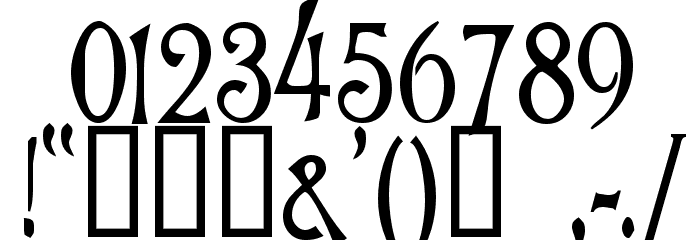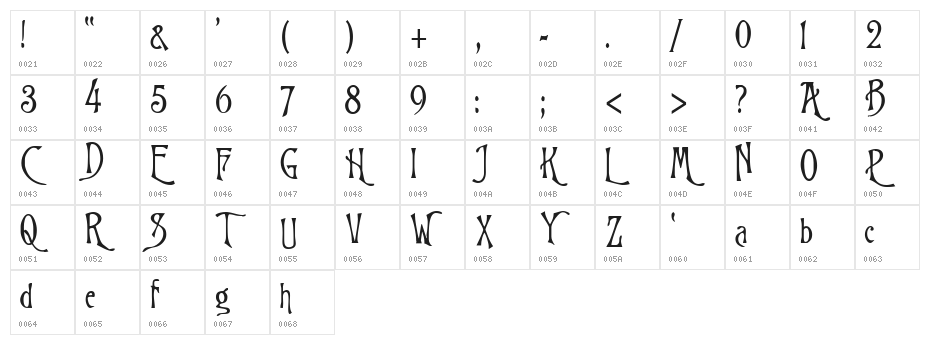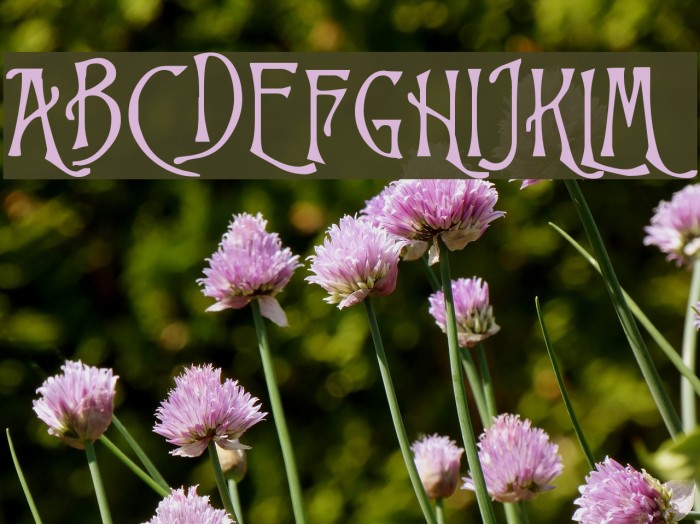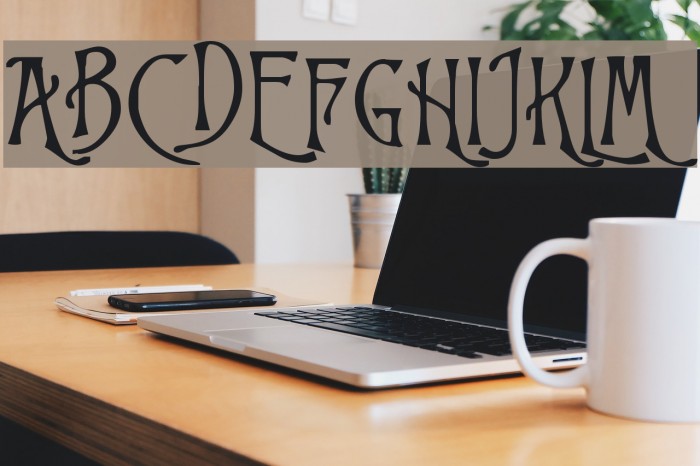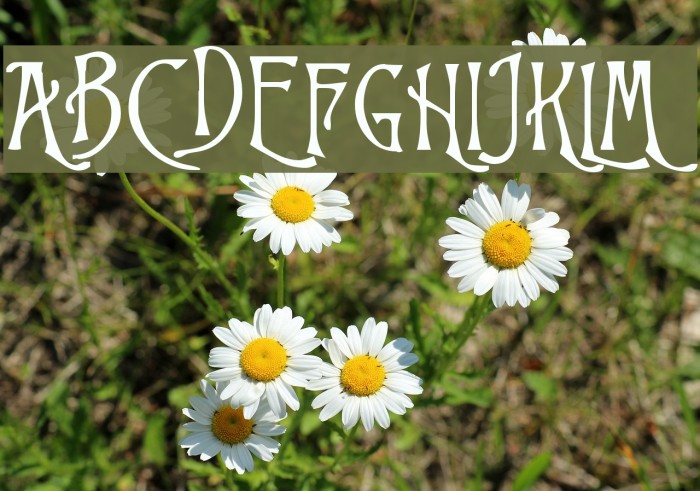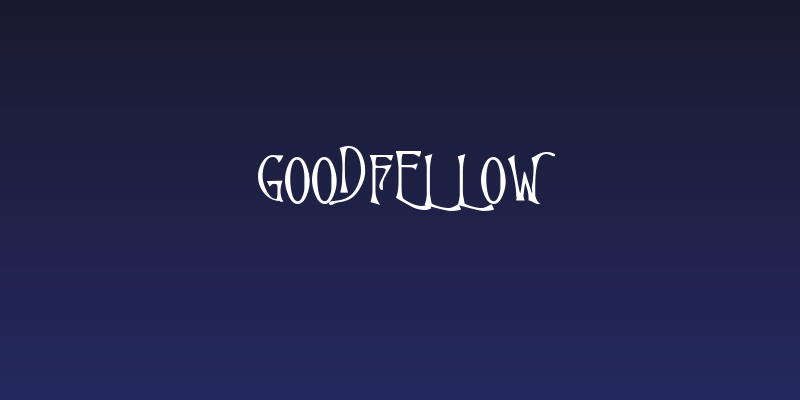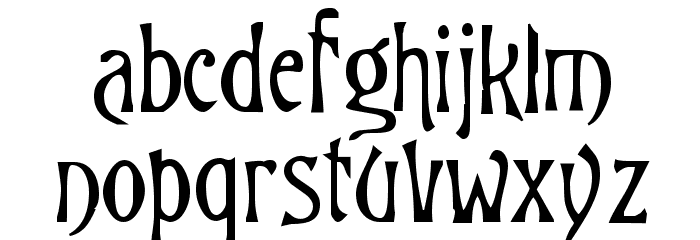
Goodfellow Font
Goodfellow Description
This font features an artistic and decorative style with a unique flair. The uppercase letters have an elongated and slightly curved appearance, giving them a whimsical and playful look. The lowercase letters maintain a similar style, with some characters having distinctive loops and swirls. The numbers are consistent with the overall design, featuring elegant curves and a slightly exaggerated form. Special characters are creatively designed, adding to the font's artistic appeal. This font is ideal for projects that require a touch of creativity and uniqueness.